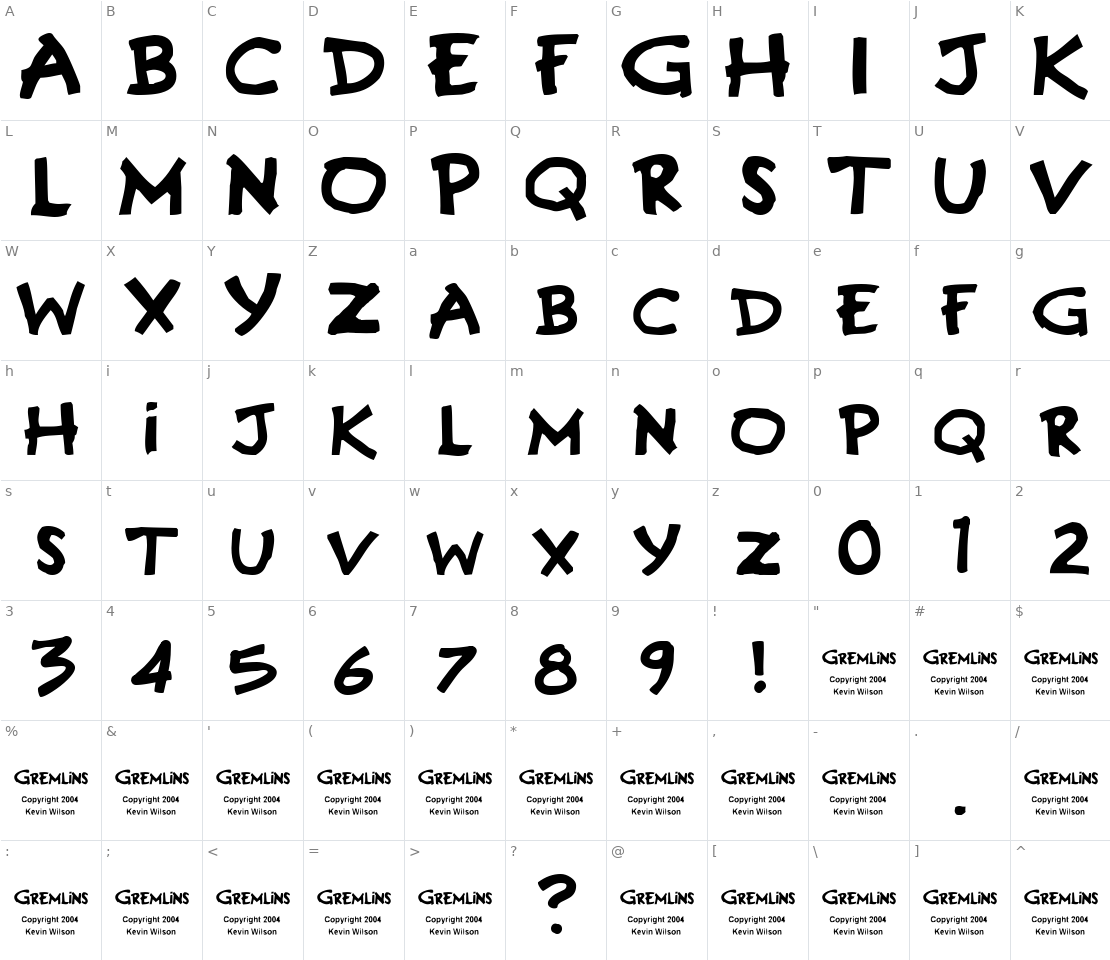
Gremlins
by The Flea Pit
Gremlins is a bold, irregular display face from The Flea Pit that captures the mischievous, slightly sinister energy of its namesake film. The letterforms are dark and quirky, with uneven baselines and exaggerated shapes that feel like they crawled off a creature-feature movie poster. Best kept to headlines and titles where you want something playful but a little menacing.